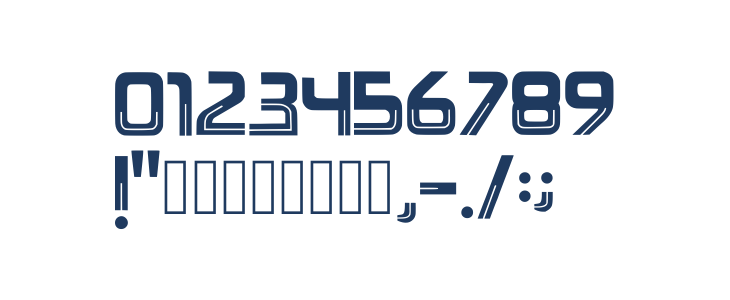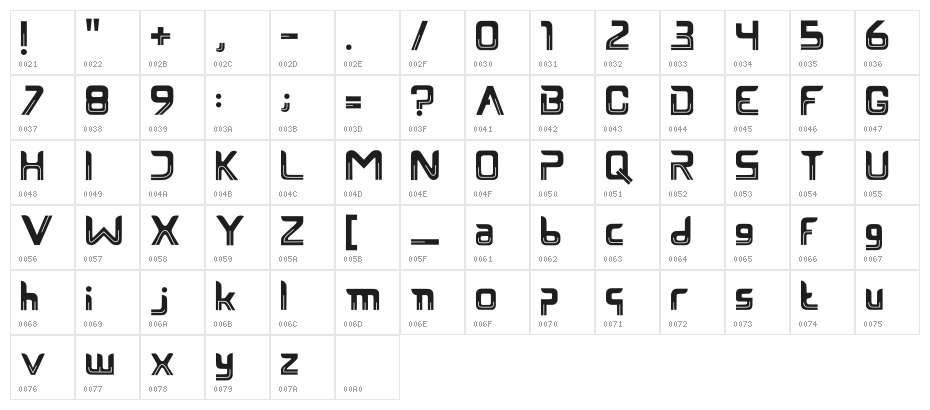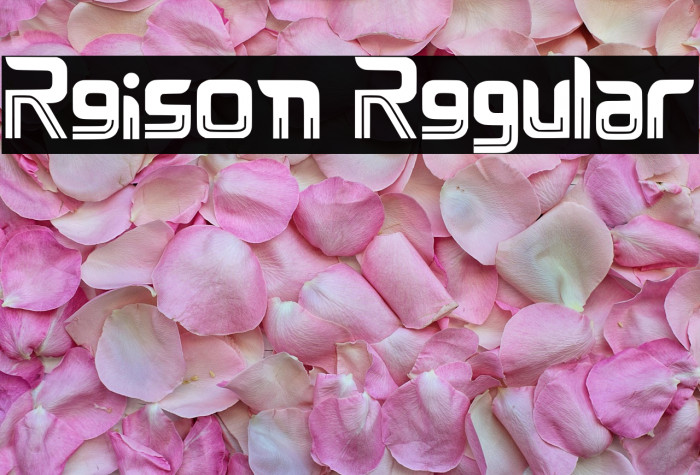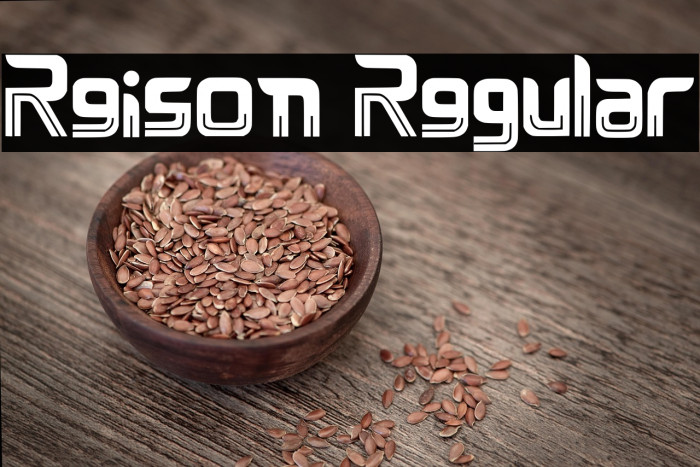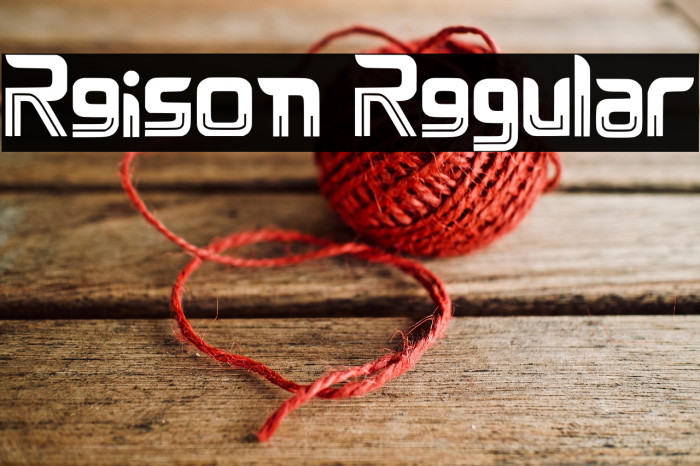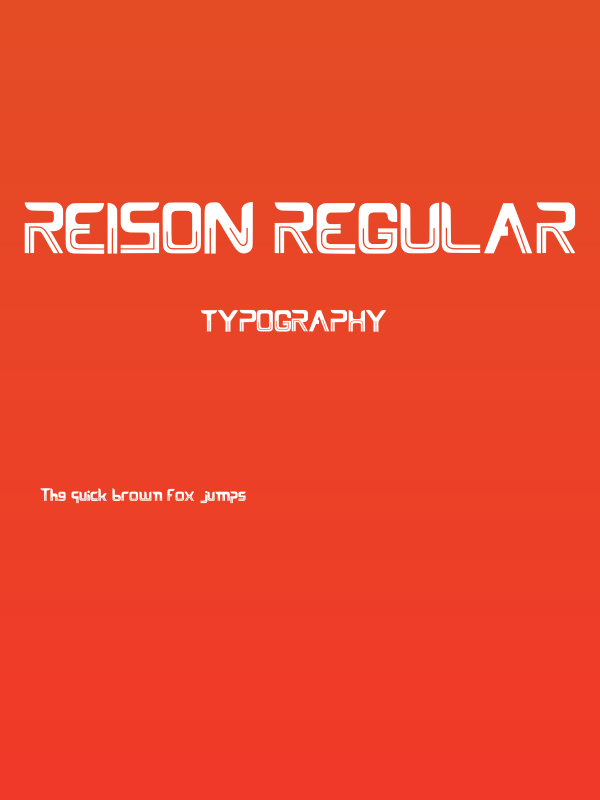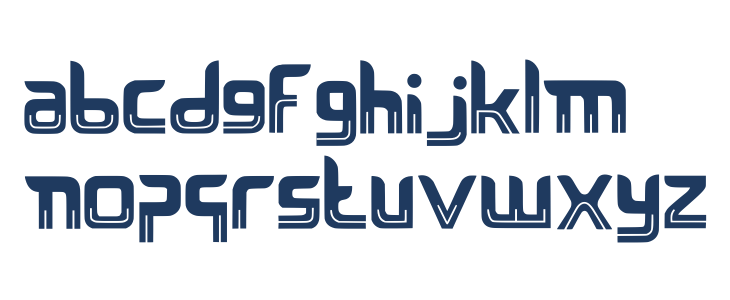
Reison Regular Font
Reison Regular Description
This font features a bold and futuristic design with a distinct geometric style. The characters are constructed with sharp angles and clean lines, giving it a modern and edgy appearance. The uppercase letters are particularly striking, with unique cutouts and a sense of movement. The lowercase letters maintain the same geometric theme, offering a cohesive look across the typeface. Numbers and special characters are equally bold, ensuring consistency throughout. This font is ideal for projects that require a strong visual impact and a contemporary feel.
Proposed ProjectsIdeal for branding, posters, album covers, and any project needing a modern, eye-catching typeface.